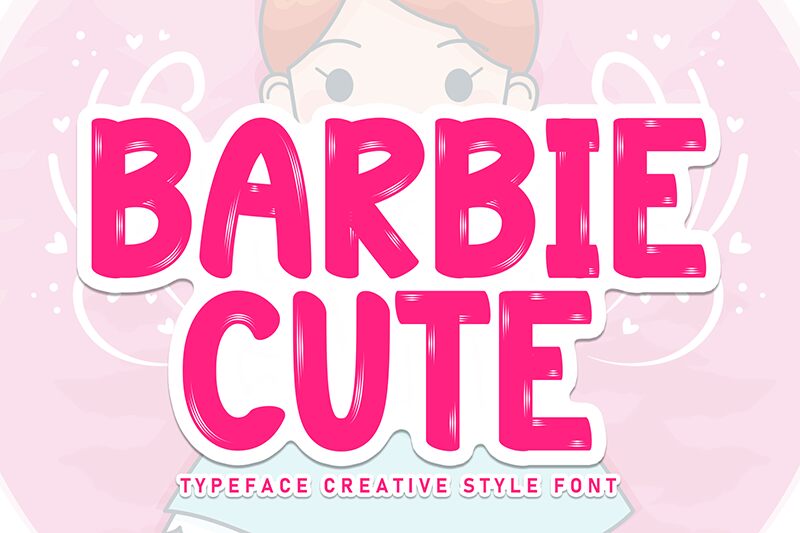
Barbie Cute
Barbie Cute font by Scratchones is a bold display choice with a chunky, textured appearance. It exudes a casual, youthful, and whimsical aesthetic, reminiscent of playful handwritten notes. The font captures attention with its distinctive design and vibrant presence.
This free display font stands out in various creative projects like invitations, greeting cards, posters, book covers, children’s projects, packaging designs, event flyers, branding identities, social media graphics and more.